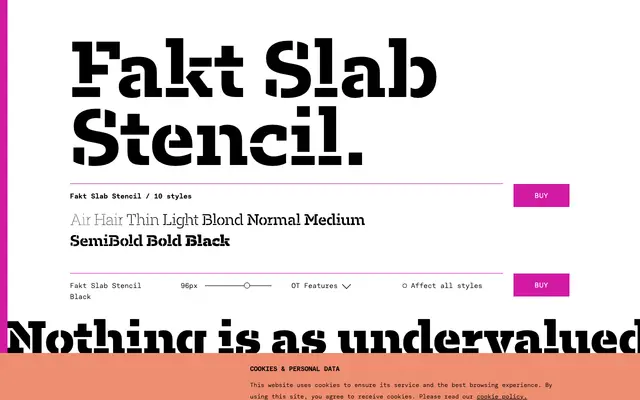
Fakt Slab Stencil
A ten-weight stencil slab ranging from Air to Black, with an extensive set of stylistic alternates for key letterforms.
Spanning ten weights from Air to Black, the family applies stencil breaks consistently across a slab serif skeleton. An unusually rich OpenType feature set includes multiple stylistic alternate sets for A, V, W and other characters, discretionary ligatures for two-letter capital pairs, oldstyle figures, and historical forms. The result sits between utilitarian stencil work and considered editorial typography.
A slab serif with stencil cuts applied throughout, giving it an industrial, utilitarian character. The bracketed slab serifs and upright construction place it firmly in the slab category, with the stencil treatment as a defining formal feature.